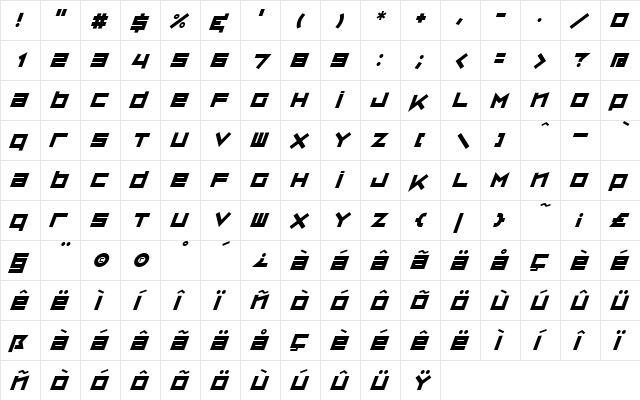
ZipSonik Italic
Design Context for ZipSonik Typeface
ZipSonik is a composed and adaptable typeface that performs quietly and consistently across a wide range of design contexts. The slanted form adds forward momentum and visual energy.
Pro Tip: Try ZipSonik for annotation and caption copy alongside an upright companion — the contrast in angle creates a dynamic but ordered typographic system.